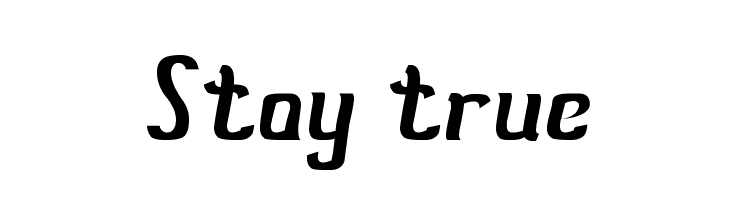
A playful, heart-patterned decorative font with a hand-drawn style.
A stylish, handwritten font with elongated, flowing lines and a sophisticated appearance.
A bold, futuristic font with rounded edges and geometric structure.
A playful, bold font with rounded edges and a whimsical style.
A playful, inline font with rounded, elongated characters and a whimsical style.
A bold, brush-style font with dynamic, hand-painted strokes.
A fluid, handwritten font with elegant curves and a personal touch.
A playful, casual handwritten font with flowing, irregular letterforms.
A playful, whimsical handwritten font with tall, narrow letters and irregular strokes.
A playful and eclectic font with varied artistic styles for each character.
A playful, bold font with rounded, thick strokes and a whimsical, casual vibe.
A bold, playful font with a retro flair and chunky, rounded characters.
A bold, playful font with rounded, bubbly characters perfect for retro and fun designs.
A bold, playful font with a bubbly, retro design.
A bold, playful font with rounded, slanted letterforms for a casual look.
Elegant cursive script with a handwritten style.
Playful handwritten script font.
Casual, rounded handwritten font with a friendly vibe.
( CORONAVIRUS )
A decorative, virus-themed design using circular shapes.